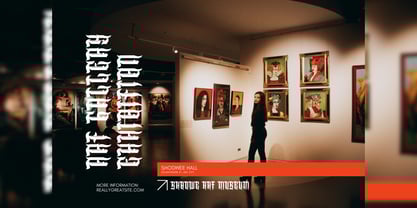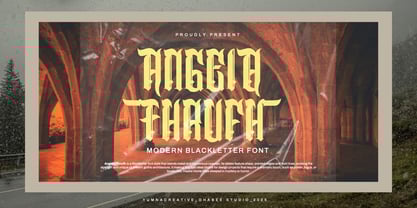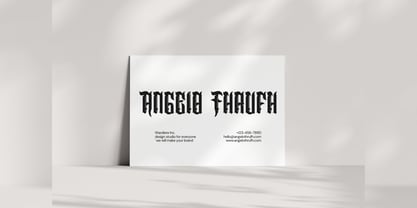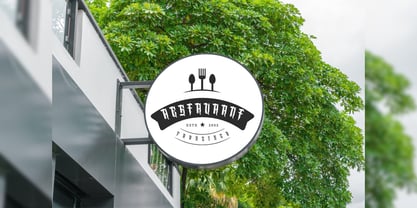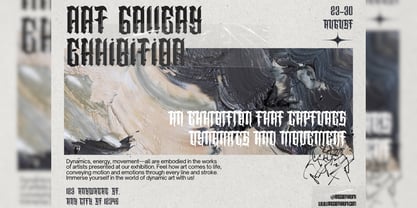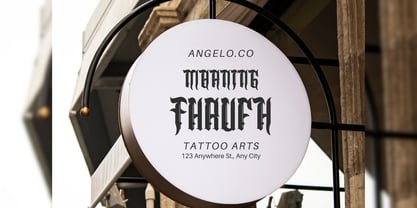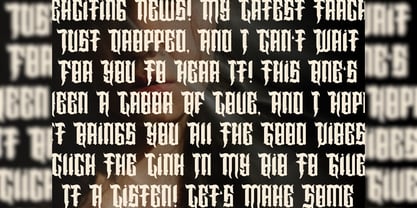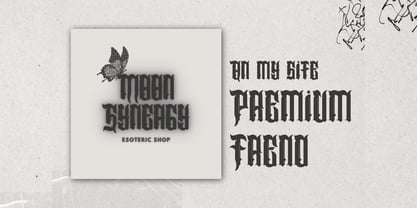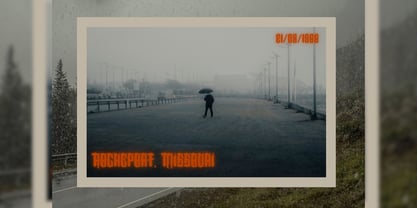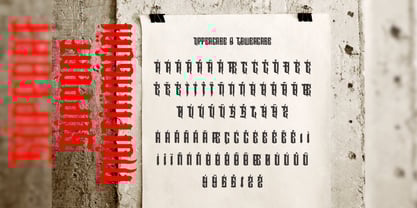
Angelo Thrufh
by Yumnacreative
Introducing Angelo Thrufh - Modern Blackletter Font
Angelo Thrufh - Modern Blackletter Font is a bold blackletter fraktur display font that merges traditional Gothic aesthetics with modern impact. Its intricate letterforms feature sharp angles, dramatic strokes, and striking contrasts, embodying strength, authority, and historical charm. The bold weight enhances its commanding presence, making it ideal for designs that demand attention and sophistication
FEATURES
- Uppercase and Lowercase letters
- Alternate and Ligature
- Numbering and Punctuations
- Multilingual Supports